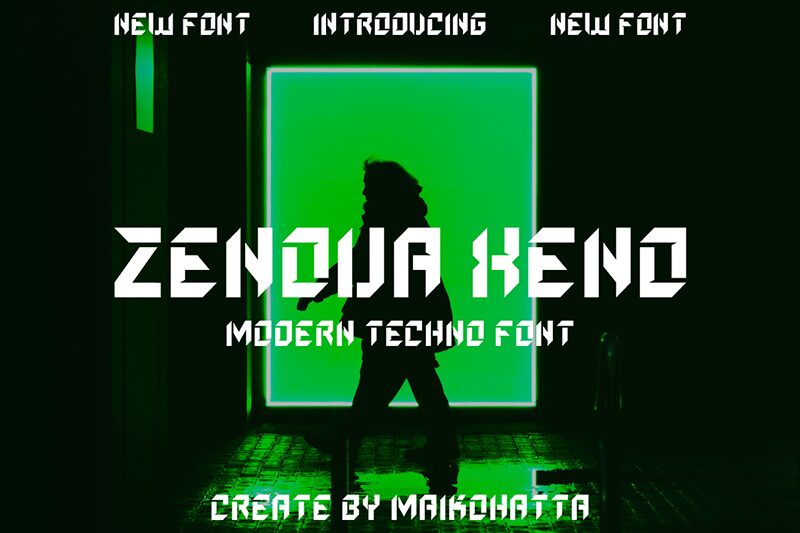
ZENOVA XENO
Zenova xeno font by Gilang Ternadho is a modern techno display free font with a futuristic aesthetic, angular characters, and geometric shapes. This highly accentuated typeface can immediately grab attention while delivering your message loud and clear. With its strong emphasis, this unique piece is your go-to tool for a successful visual project.
Use Zenova xeno for signage, posters, novelty packaging designs, branding titles and headlines, logotypes, website design elements, typographic artwork pieces etc. It will surely deliver astonishing results if used in magazine covers or video game presentations – whether printed or digital projects.